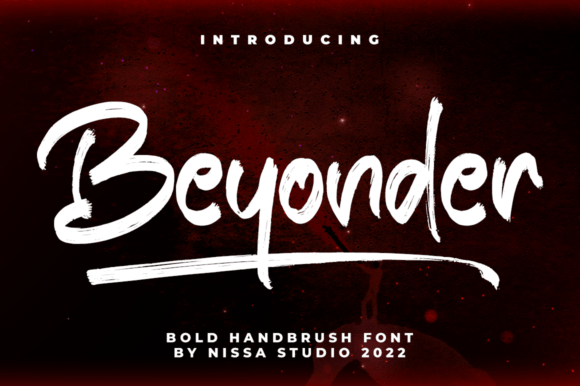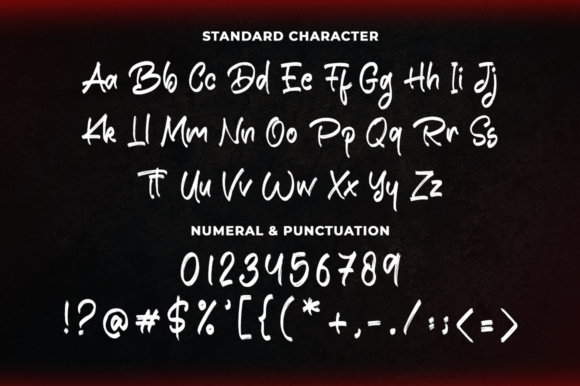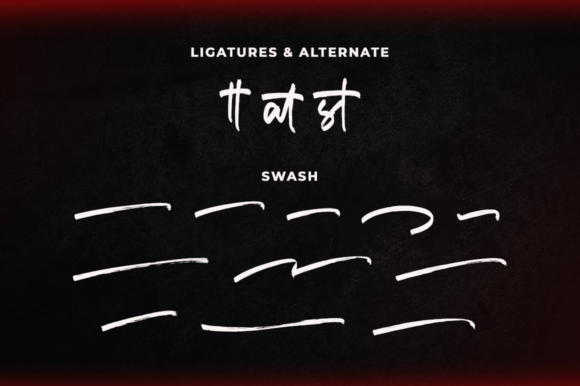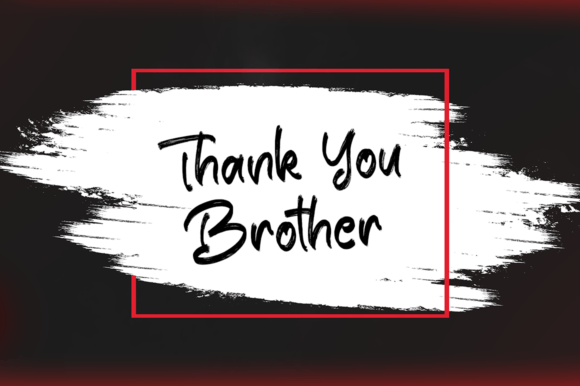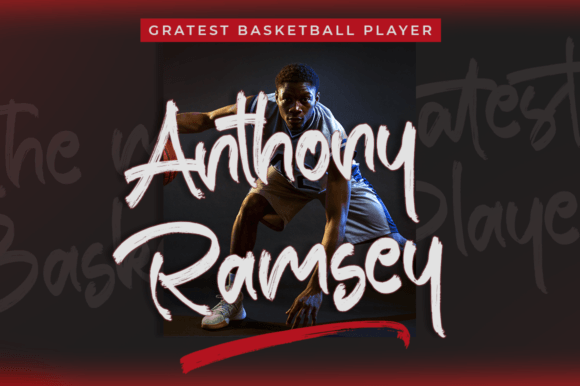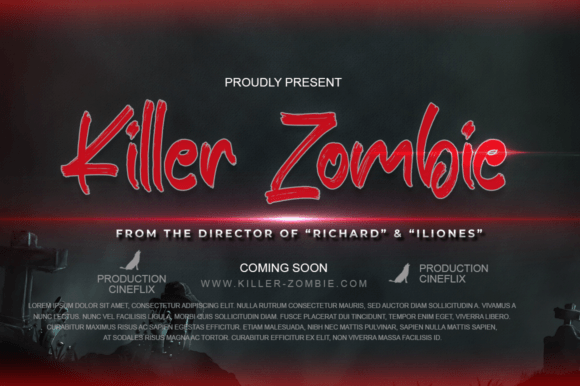
Beyonder
Beyonder is a gorgeous and bold brushed display font, crafted to give your headlines and logotype projects a stylish touch. This font reads as strong, confident, and dynamic, and can add tons of nostalgic character to your designs. This font is PUA encoded which means you can access all of the amazing glyphs and ligatures with ease!